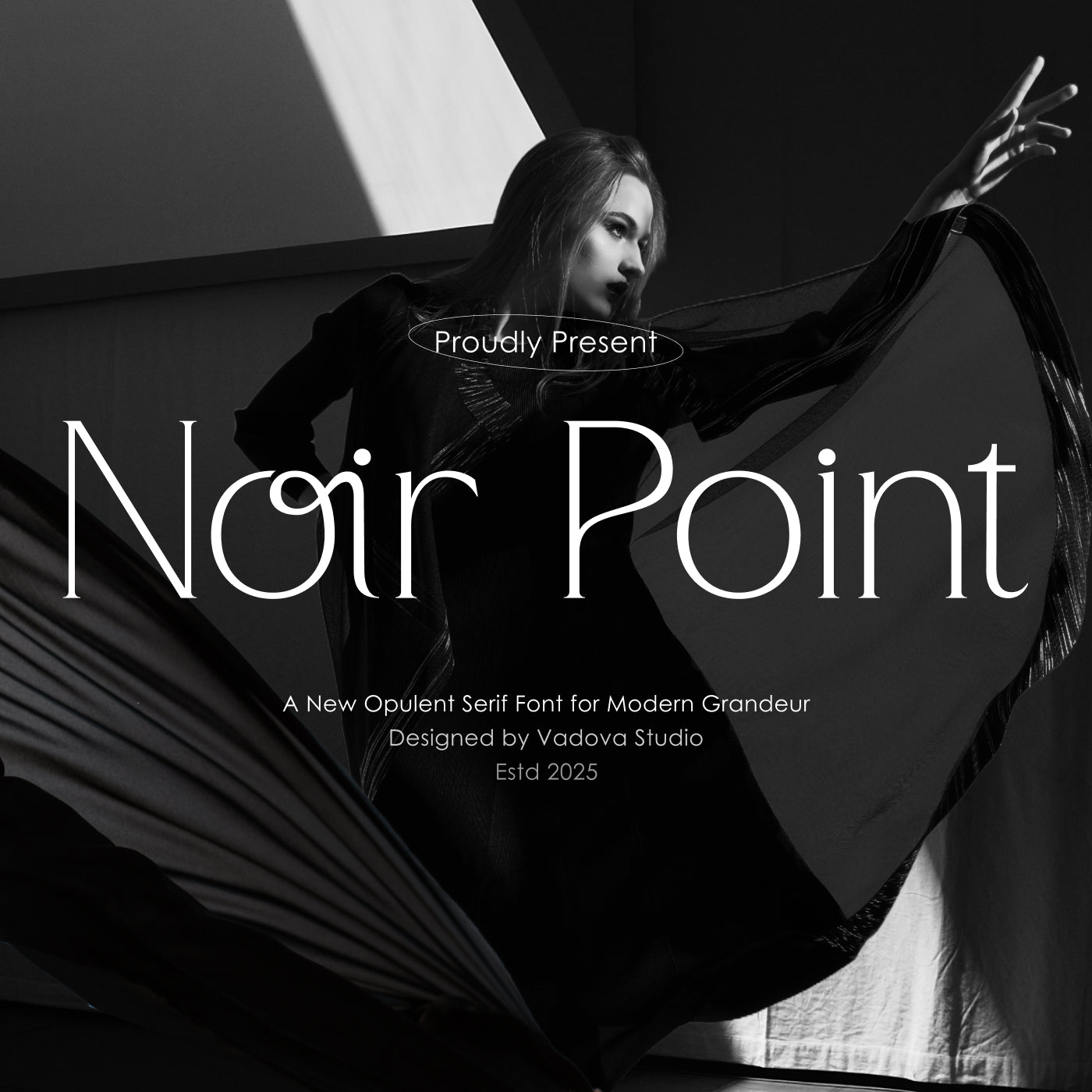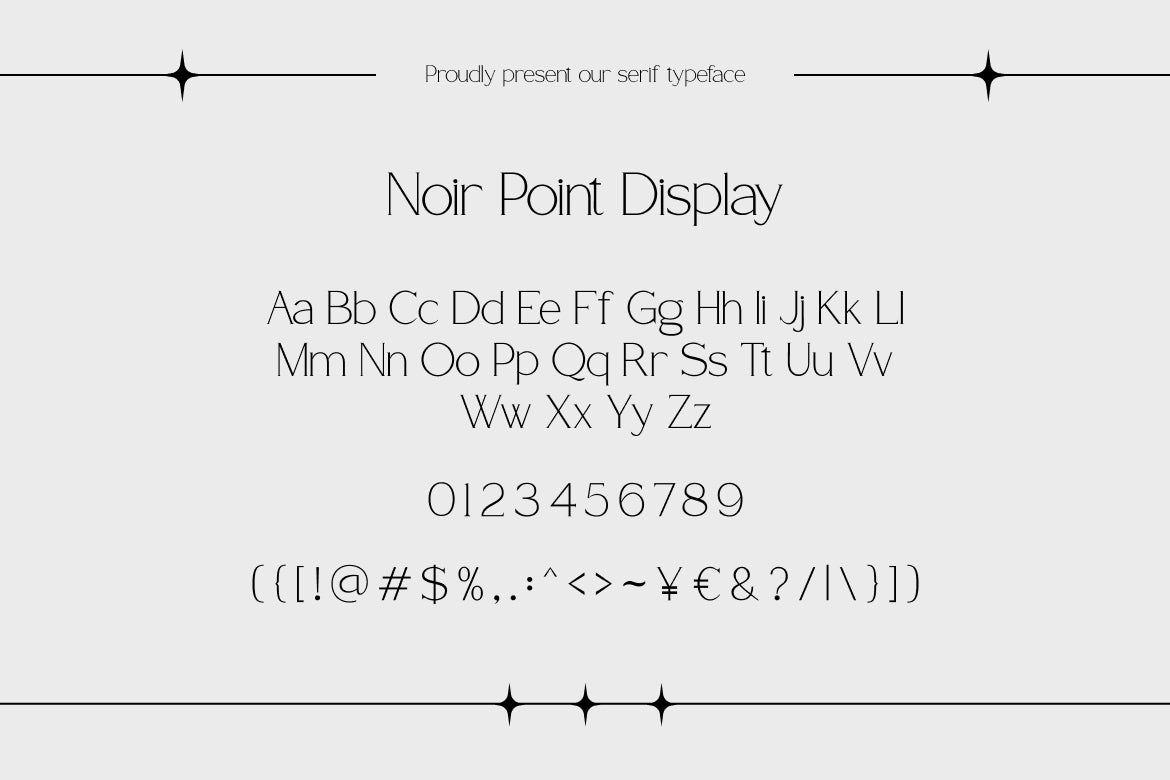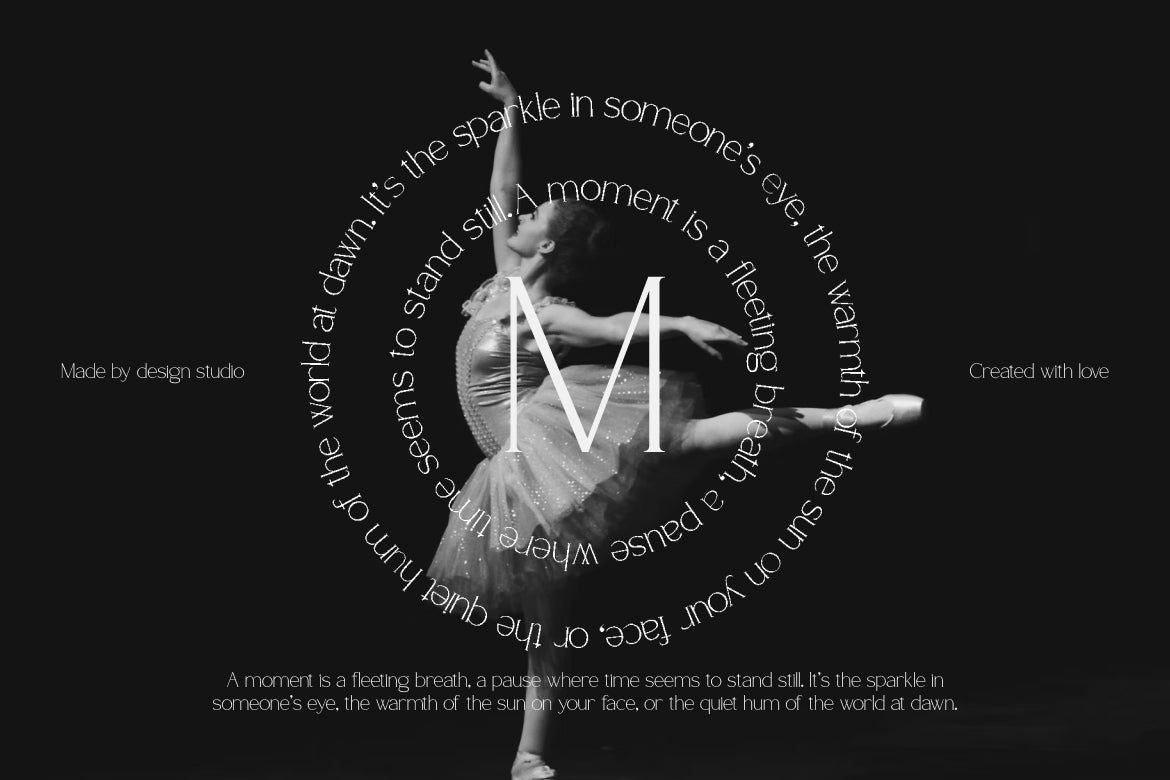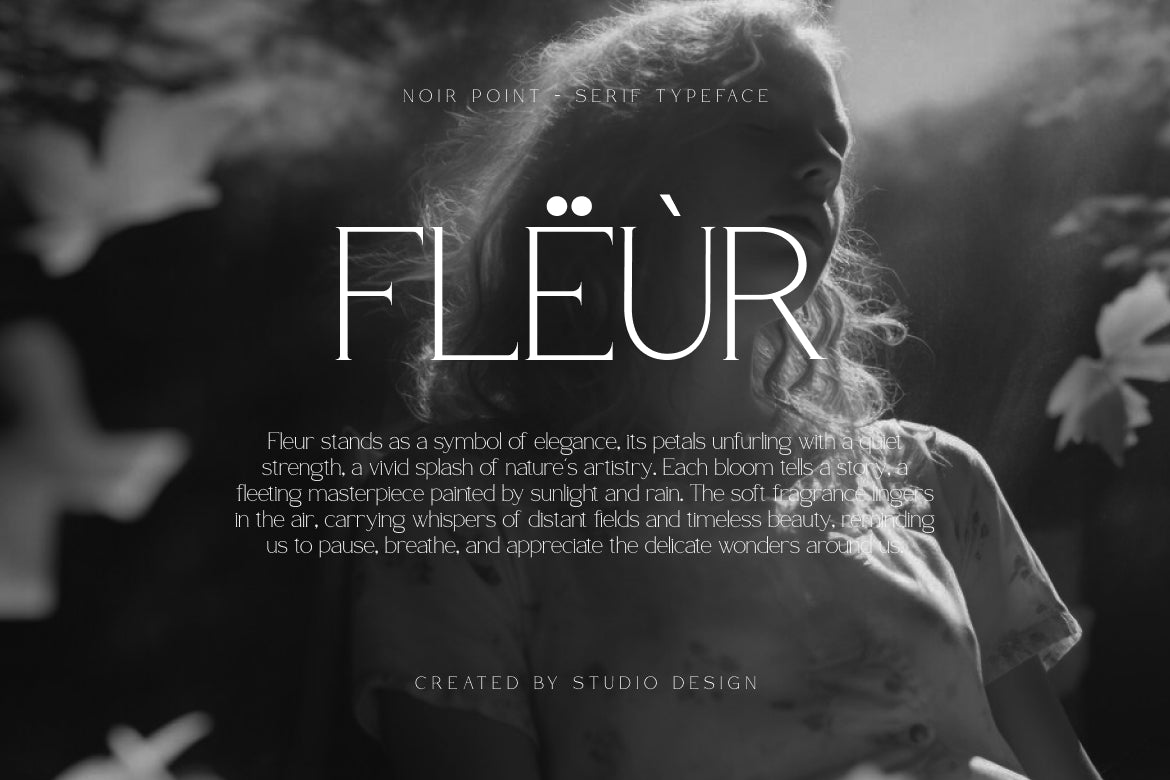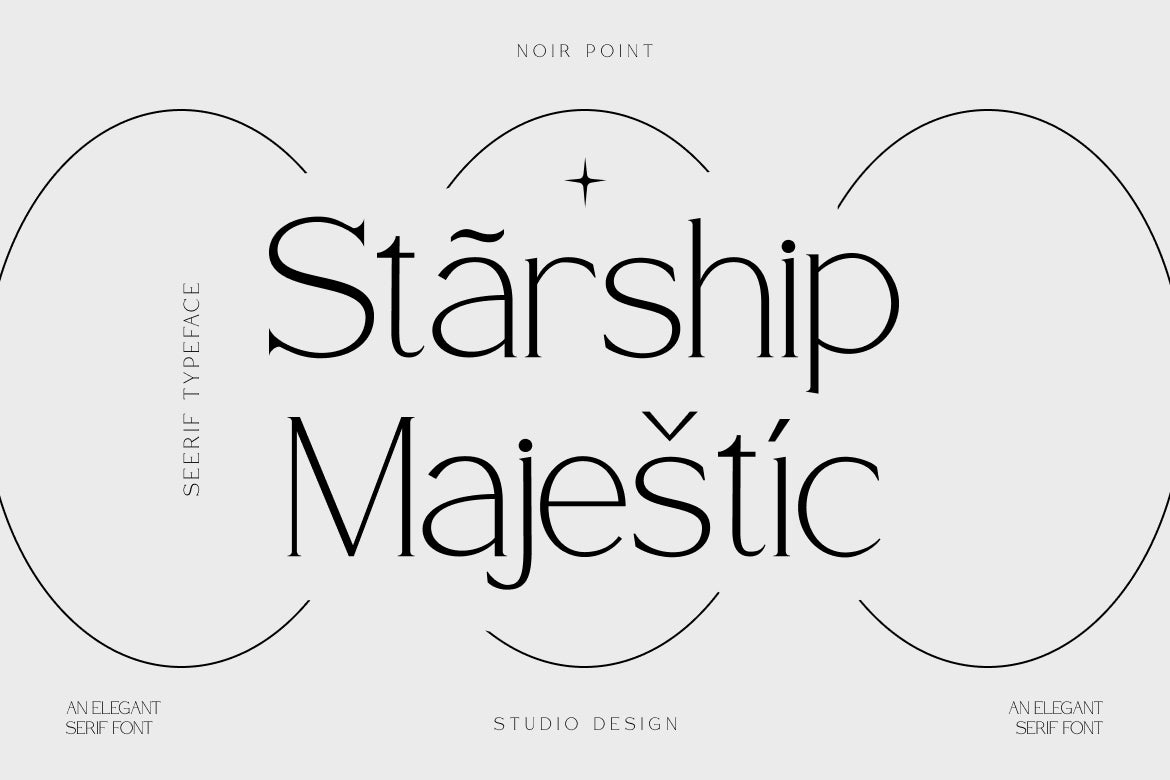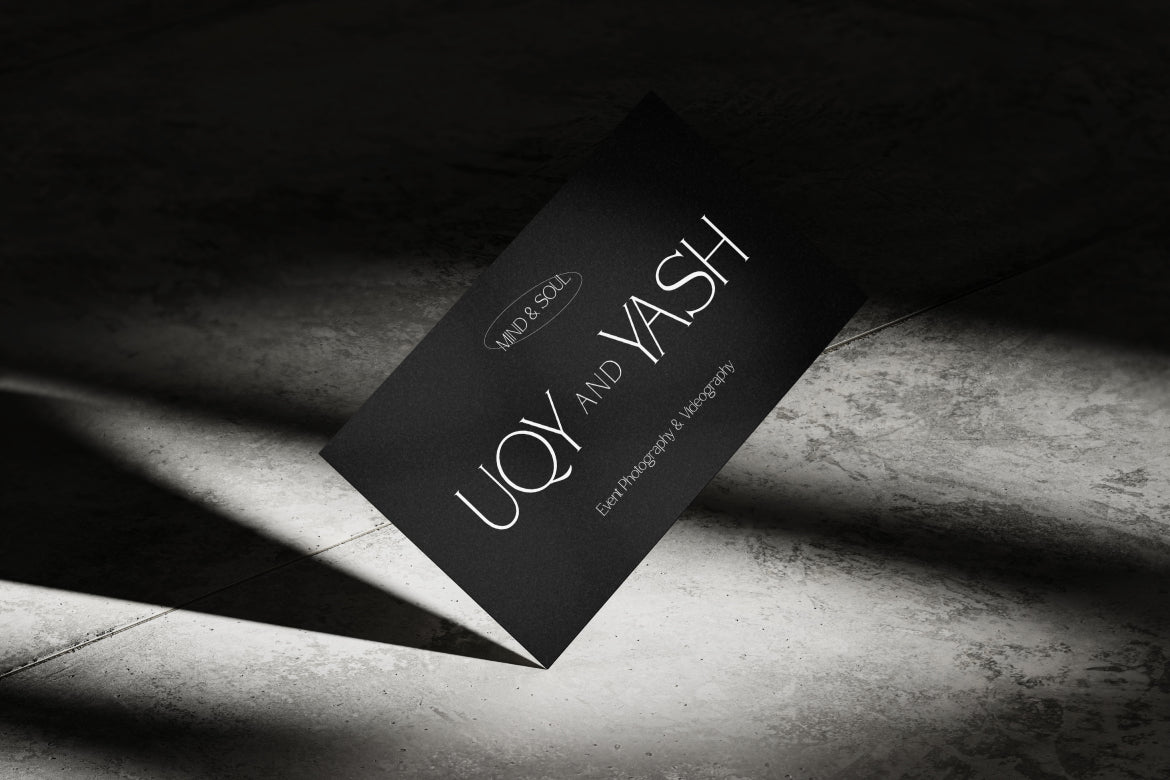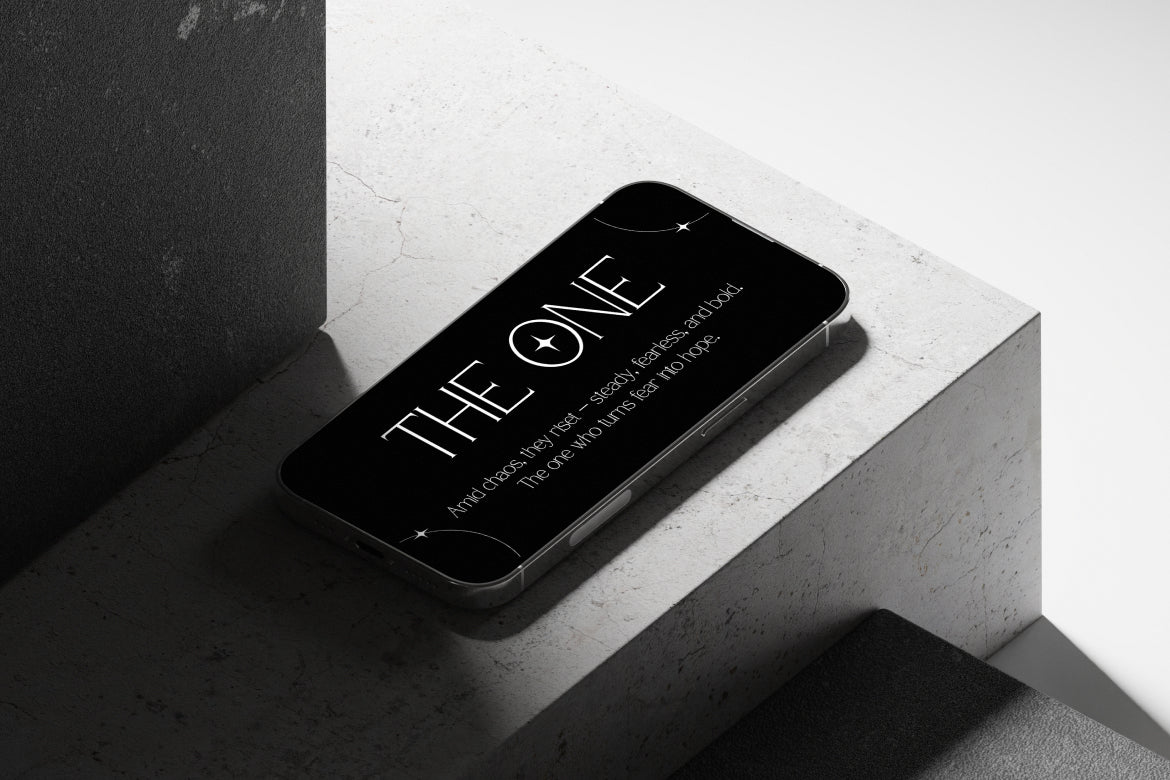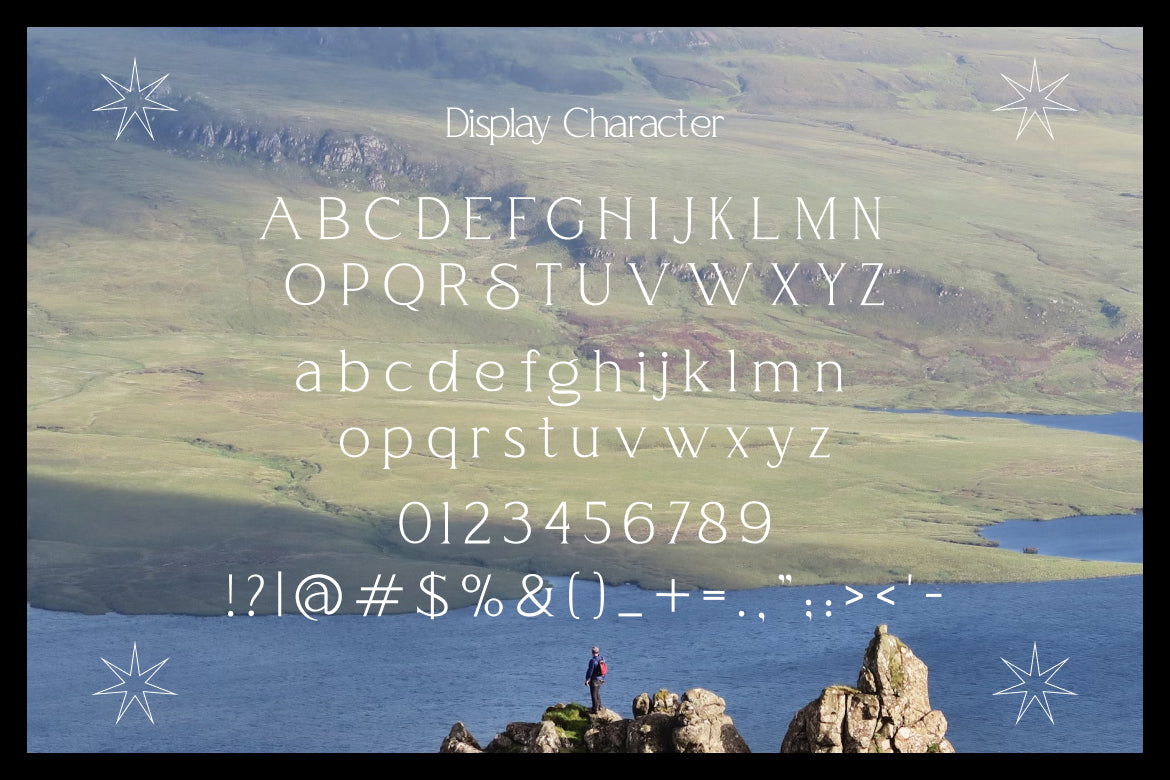
Noir Point Serif Font
Noir Point is a refined modern serif font that blends elegance and minimalism for sophisticated branding and editorial work. With its thin, stylish strokes and contemporary flair, it’s perfect for luxury logos, fashion magazines, portfolio headers, and upscale packaging. Noir Point balances classic serif charm with modern design sensibilities, making it an ideal typeface for designers seeking grace, clarity, and timeless visual appeal.
Noir Point is a modern serif font that combines elegance and minimalism, featuring thin strokes and contemporary design elements. It is available in OTF format and includes uppercase and lowercase characters, numerals, and punctuation.